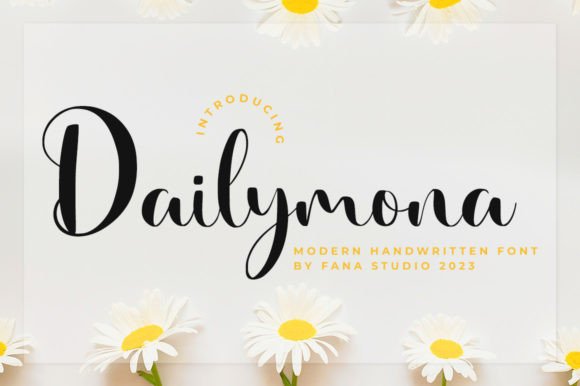
Behold! Dailymona Script Font: Your Gateway to a Thrilling Handcrafted Legacy
As an E-commerce SEO expert, I'm thrilled to present to you the captivating Dailymona Script font collection. Dailymona is more than just a font; it's an exquisite fusion of style, grace, and allure that will bring your creative projects to life. Its elegant and modern strokes evoke a sense of artistry that is both timeless and utterly captivating.
Dive into a world where creativity knows no bounds. Unleash Dailymona's boundless potential in a symphony of design possibilities. Craft logos that speak volumes, branding that resonates, and invitations that exude elegance. Let Dailymona dance across your stationery, gracing your words with a touch of sophistication. Design wedding invitations that capture the essence of romance and everlasting love.
With Dailymona, you hold the key to unlock a whole new dimension of visual storytelling. Elevate your social media posts, making them stand out from the crowd. Your advertisements will radiate with magnetic charm, attracting attention like never before. Adorn your product packaging with Dailymona's intricate details, transforming your products into masterpieces. Unleash your creativity on product designs, labels, and photography, leaving an indelible mark of originality.
Dailymona's versatility shines brightest in the realm of special events. It's the perfect font to make your every special occasion unforgettable. Whether it's a birthday, anniversary, or any other milestone worth celebrating, Dailymona will add a touch of magic to your creations.
But Dailymona is not just a font; it's a versatile tool that empowers you to effortlessly add a handwritten touch to your projects. With its PUA encoding, accessing all the glyphs and swashes is like a walk in the park. Dive into a treasure trove of creative possibilities and let your imagination run wild.